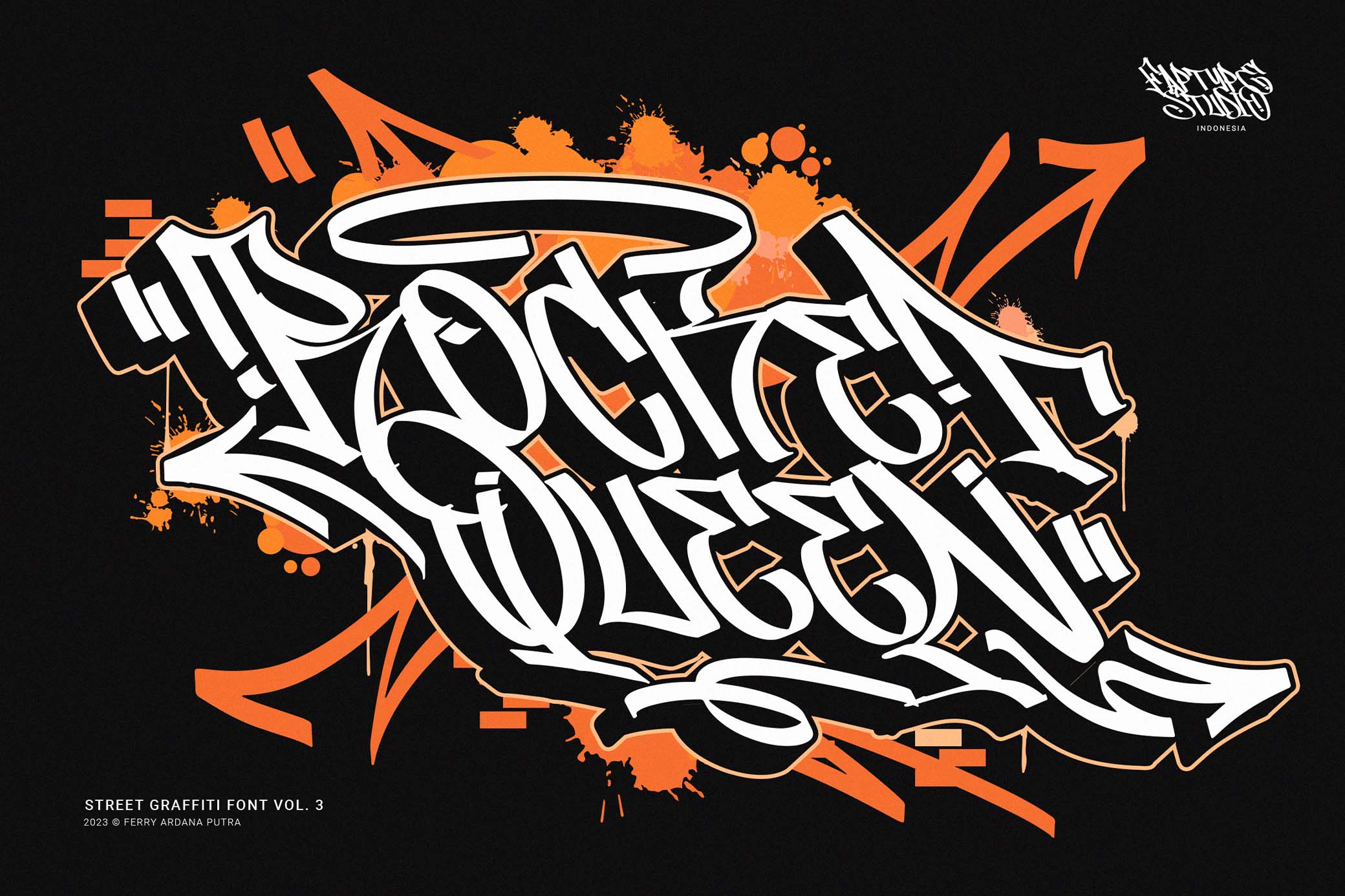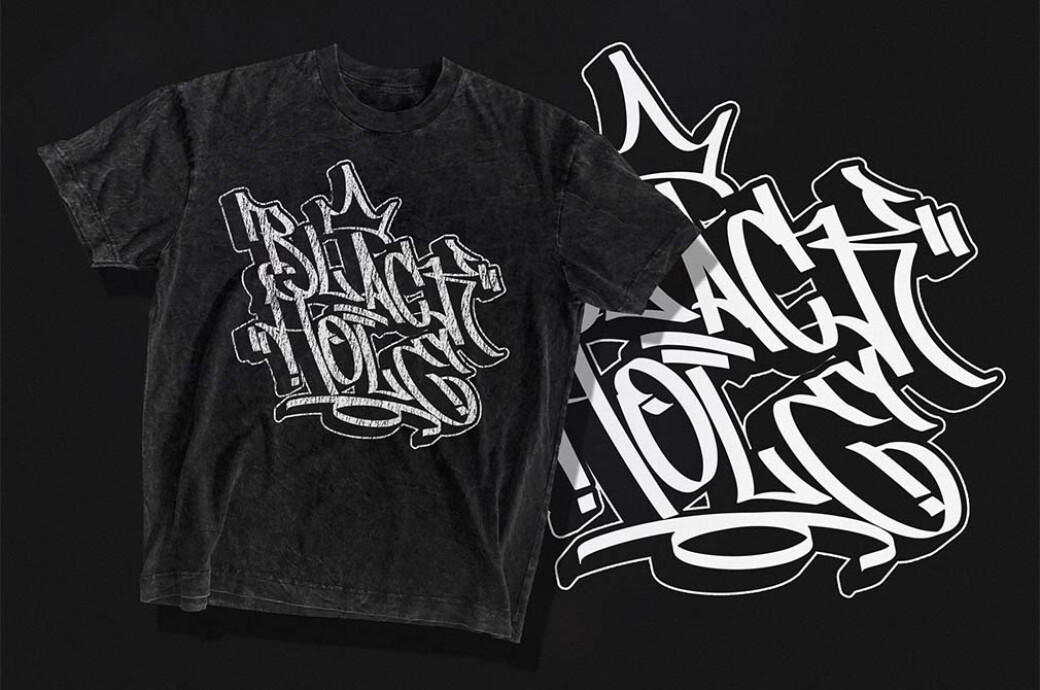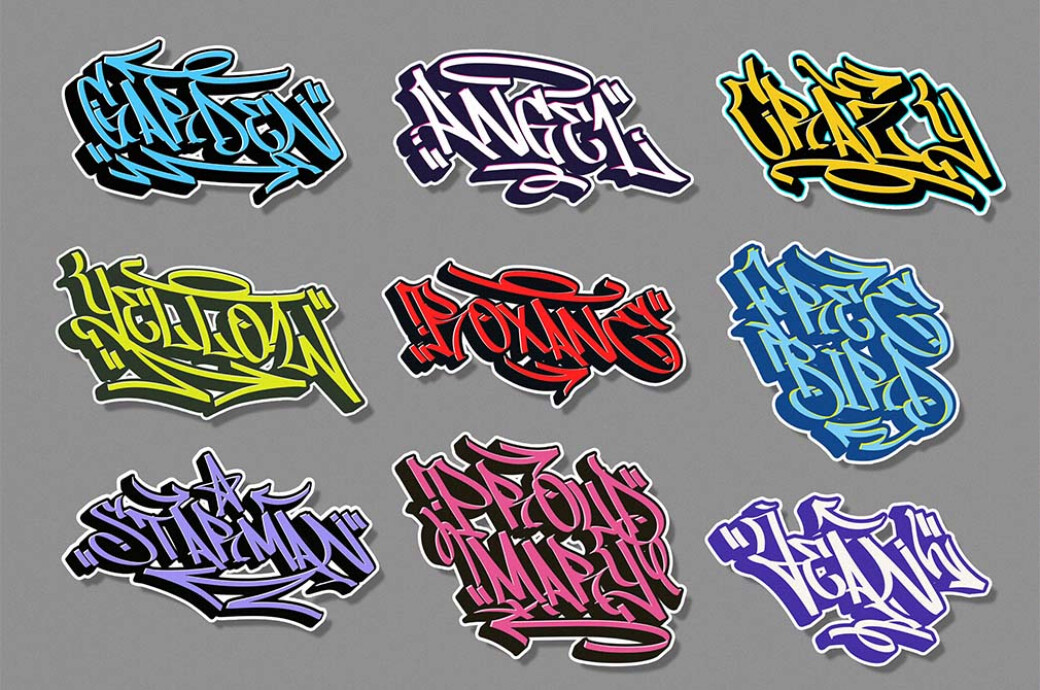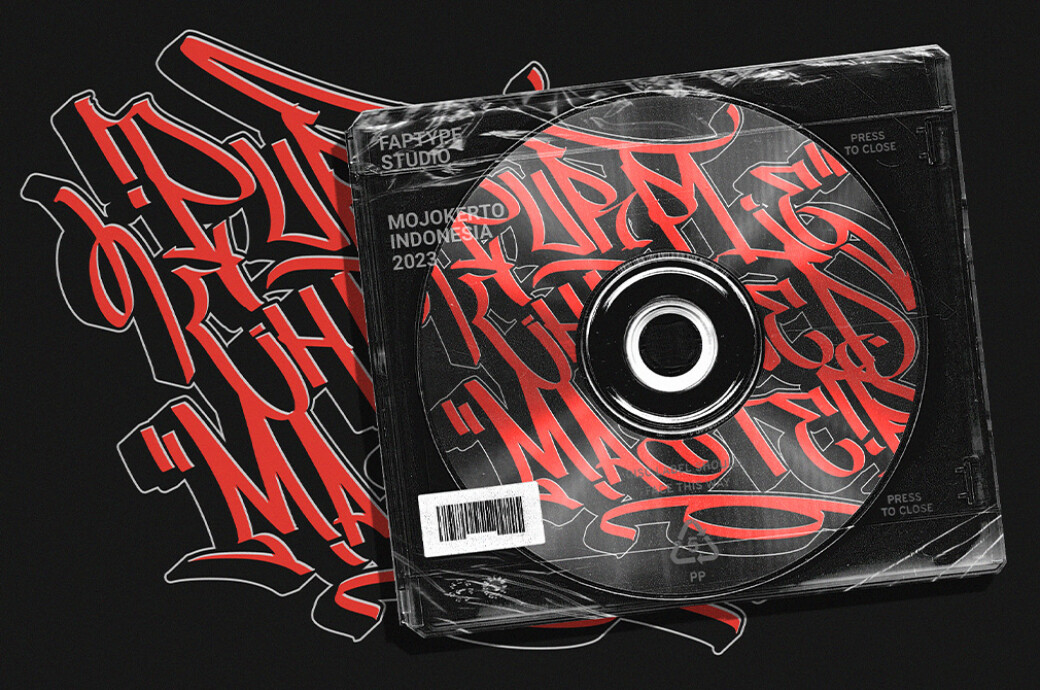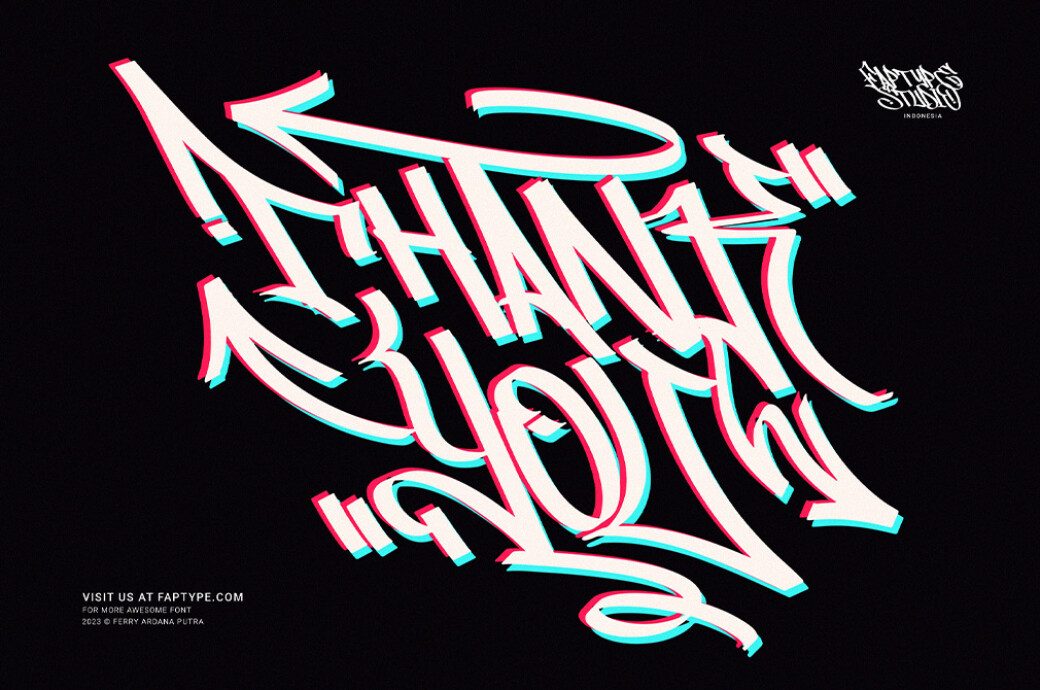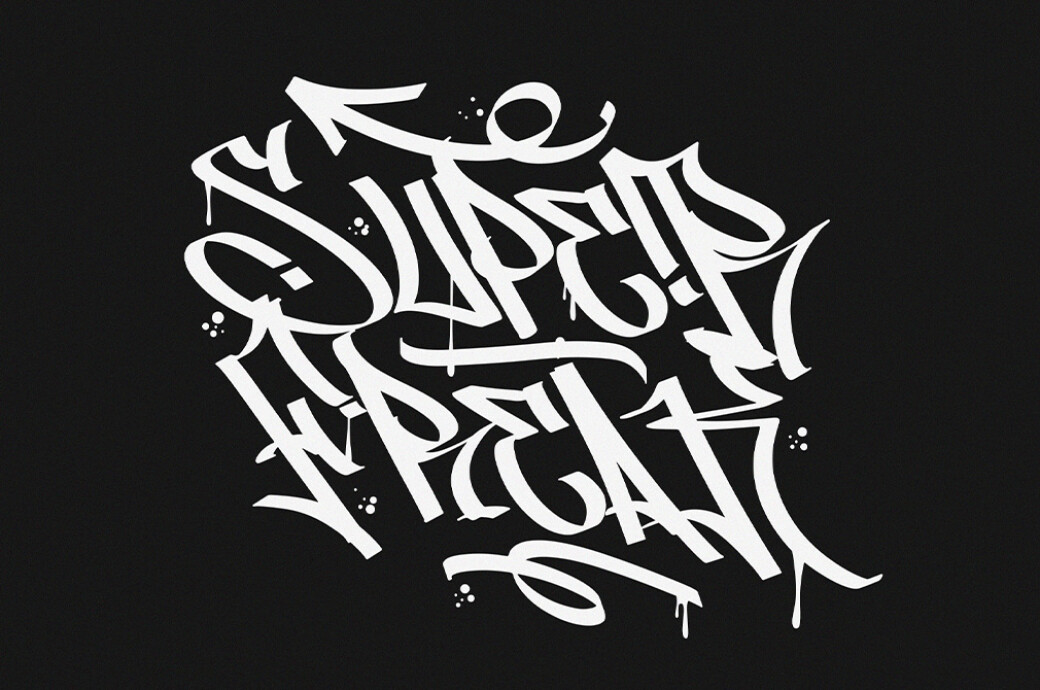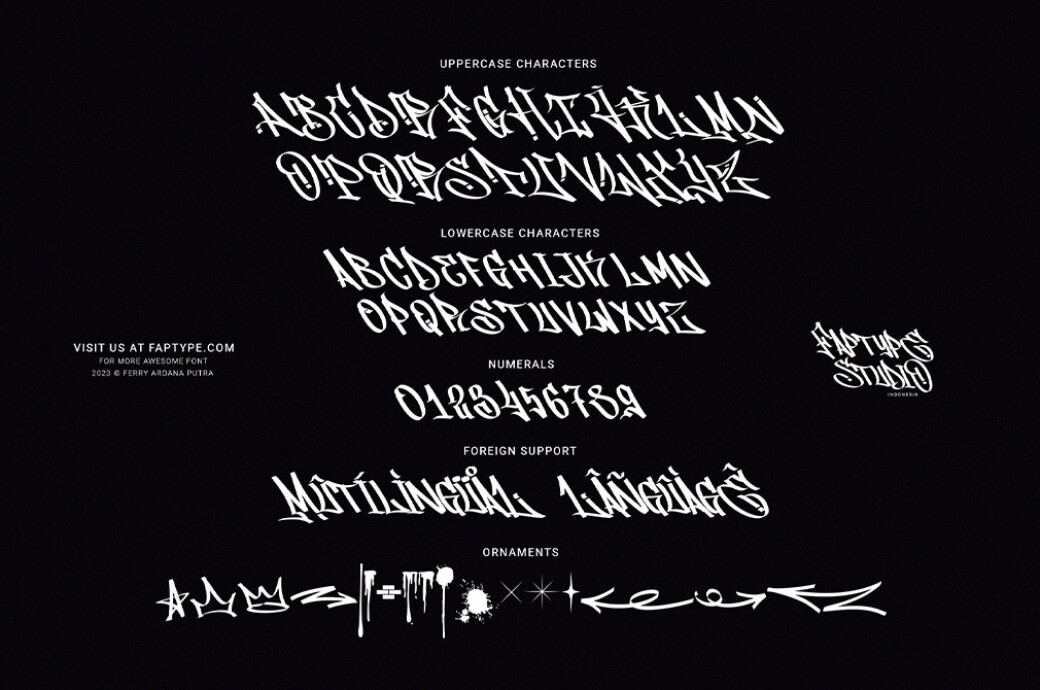
Rocket Queen — Street Graffiti Font
Inspired by the bustling streets and the bold strokes of tagging graffiti markers, this font captures the raw energy of urban life to pour it into your designs.
Featuring a full set of uppercase and lowercase characters, as well as numerals and punctuation marks, this font provides limitless creativity. While multilingual support will help you go global with this thing. Plus, it's enriched with +100 graffiti swashes and ornaments for that added urban flair. Rocket Queen is perfect for a wide range of creative and artistic applications: authentic album covers, event posters, stickers, ads, streetwear apparel design, branding, and many more.